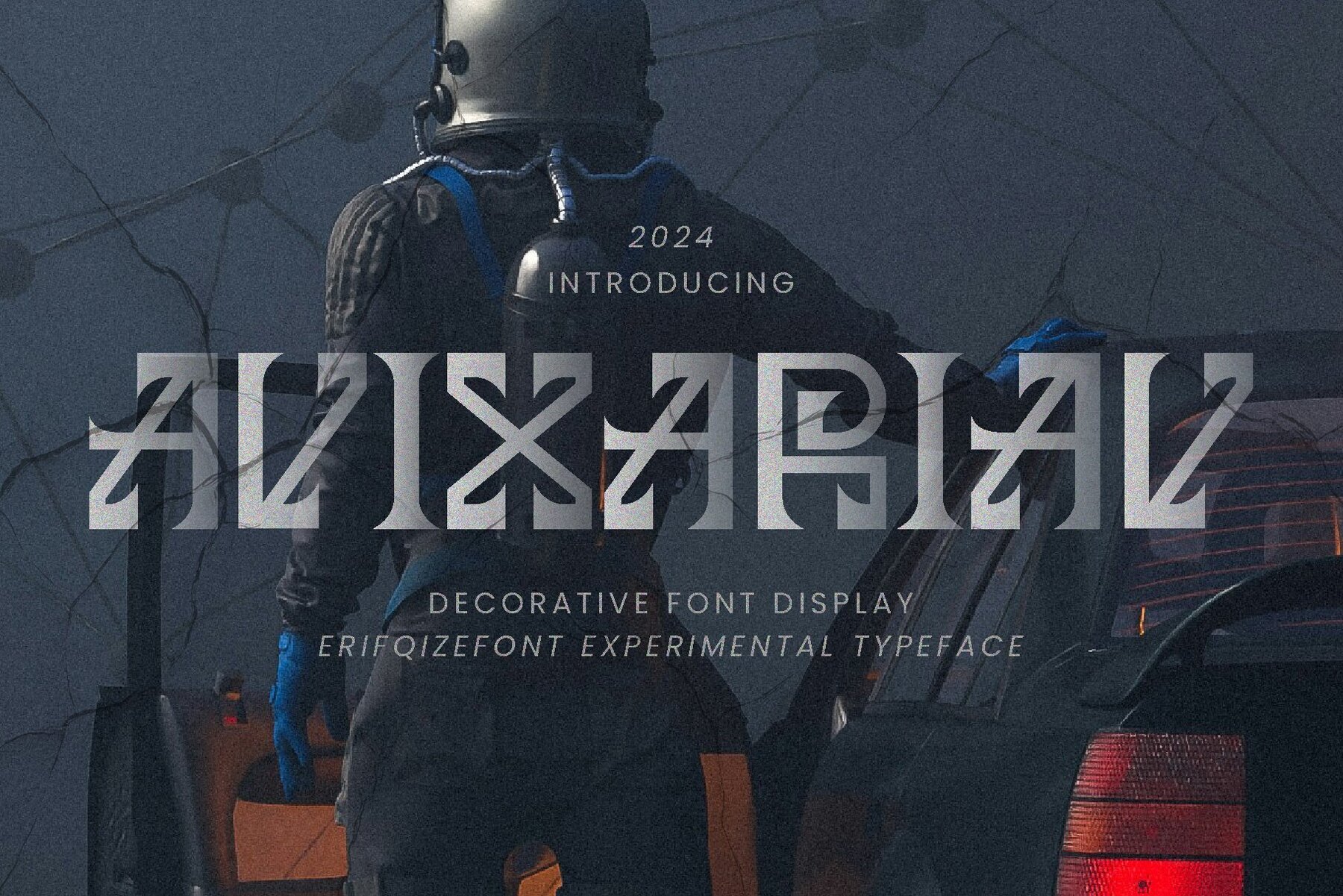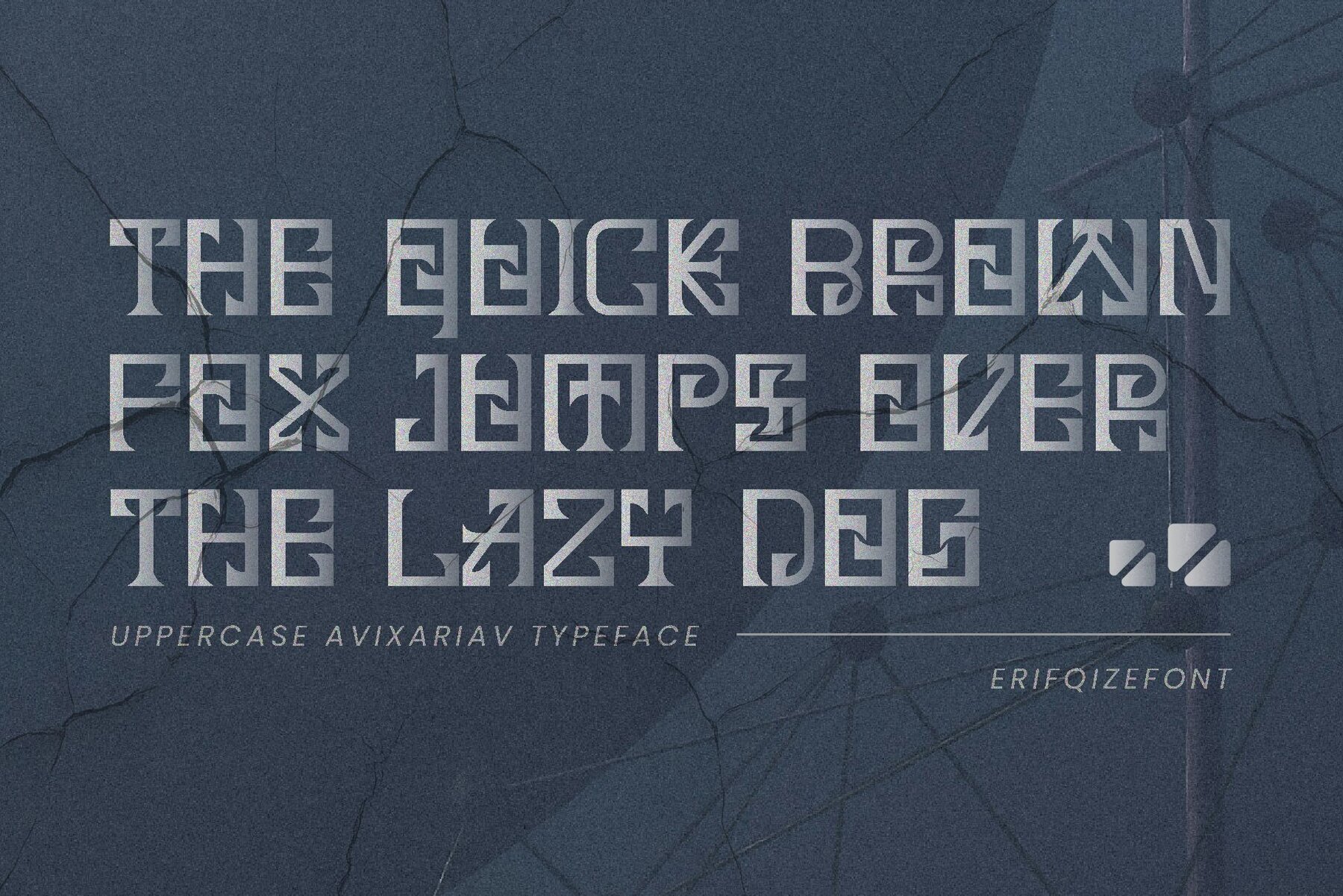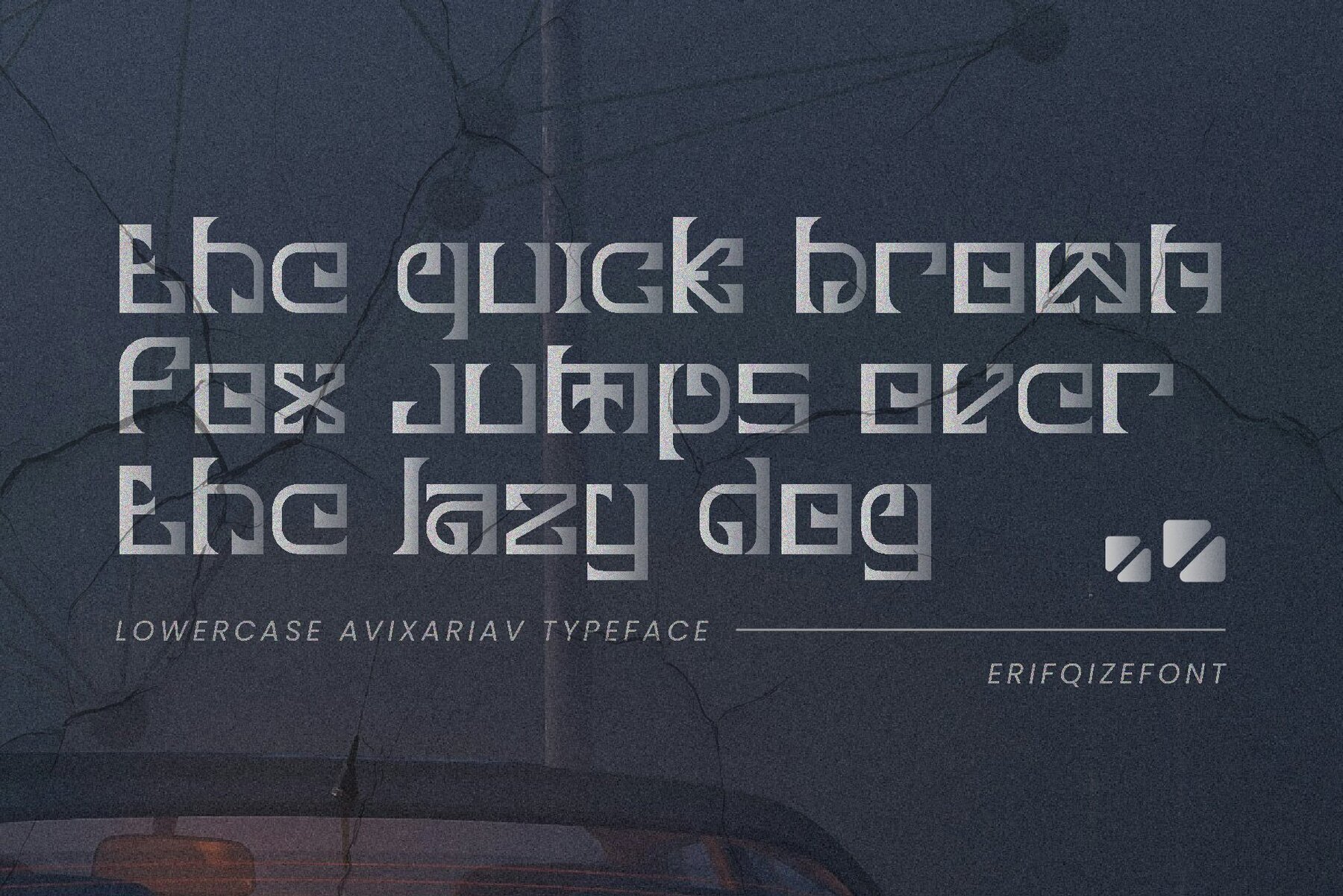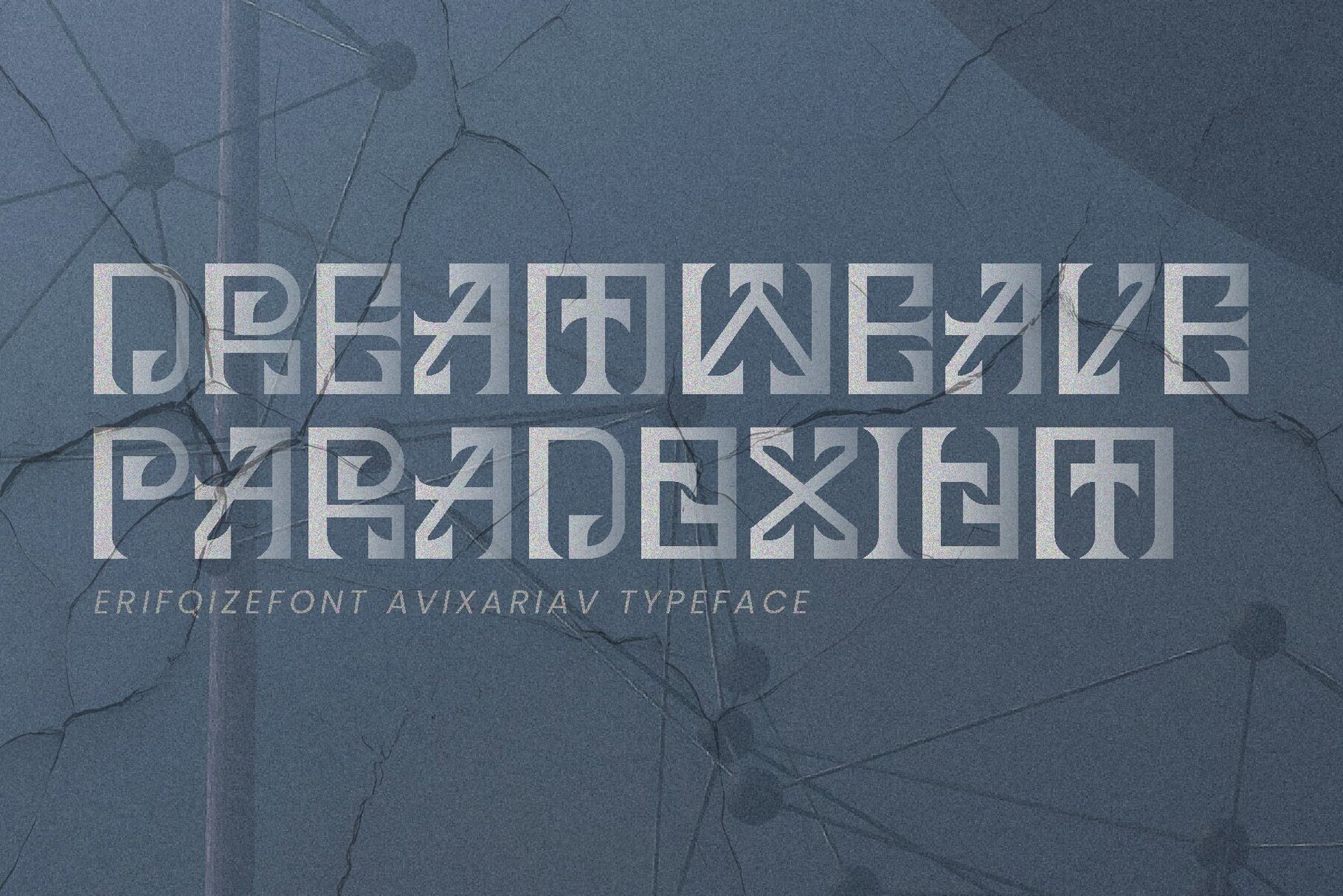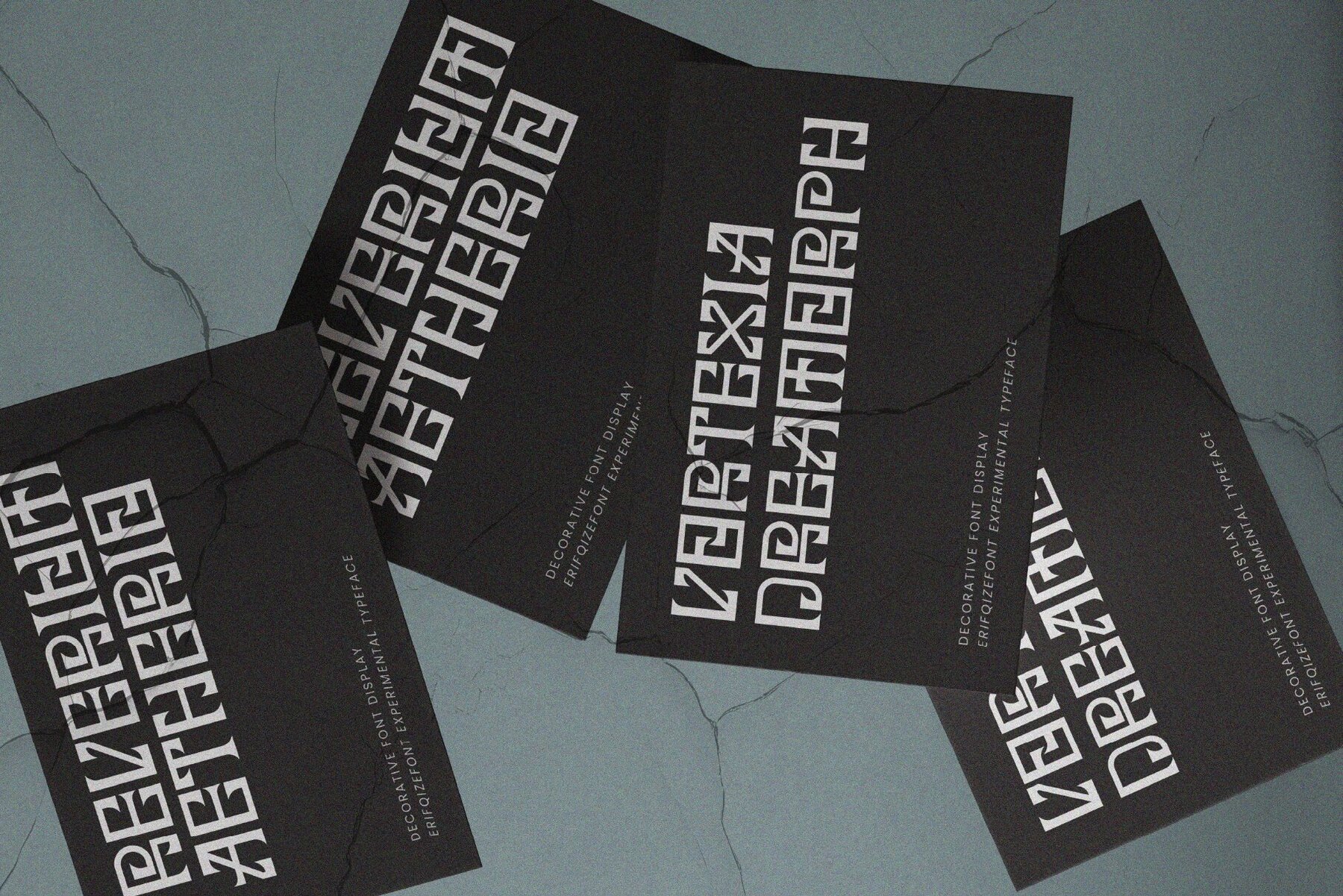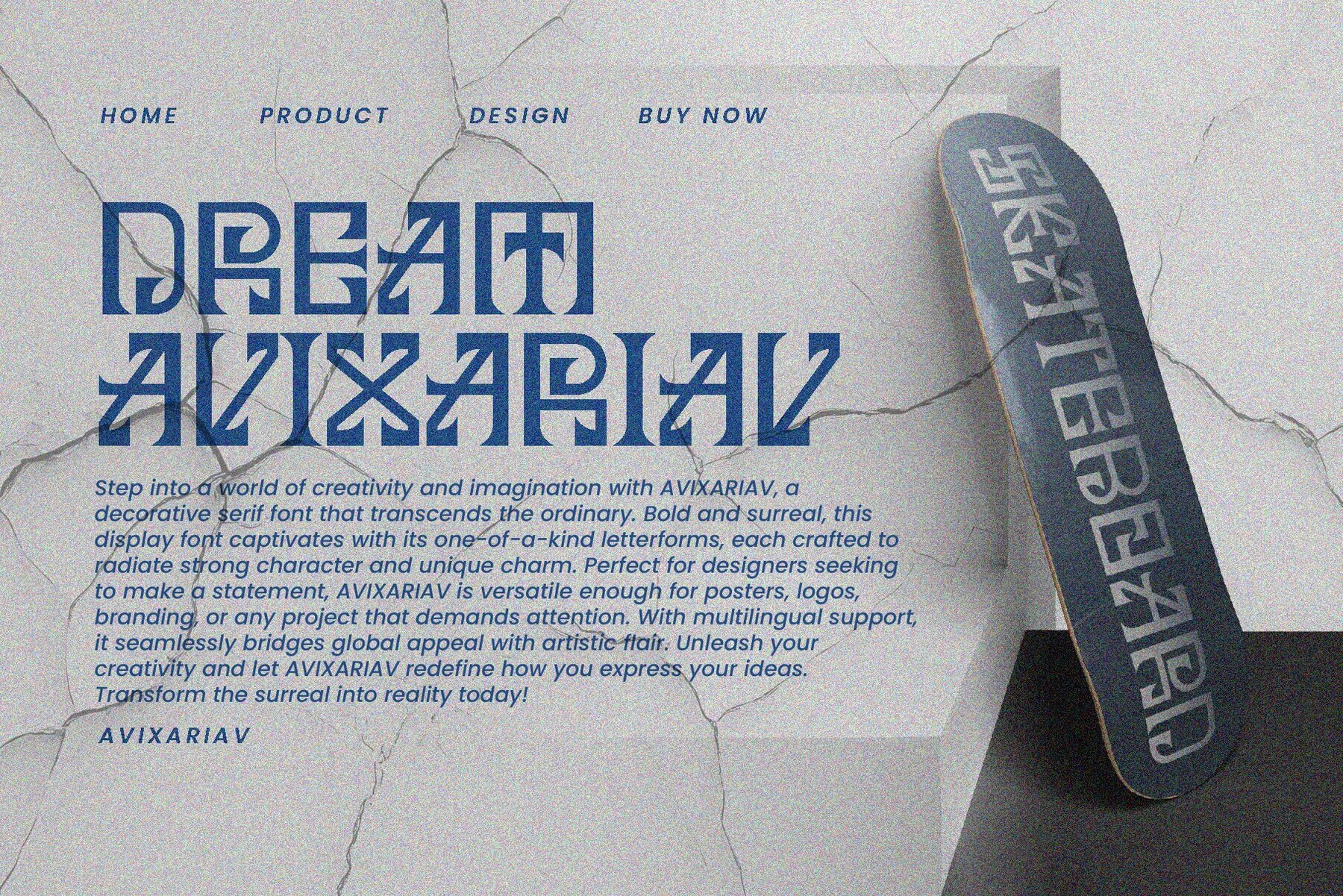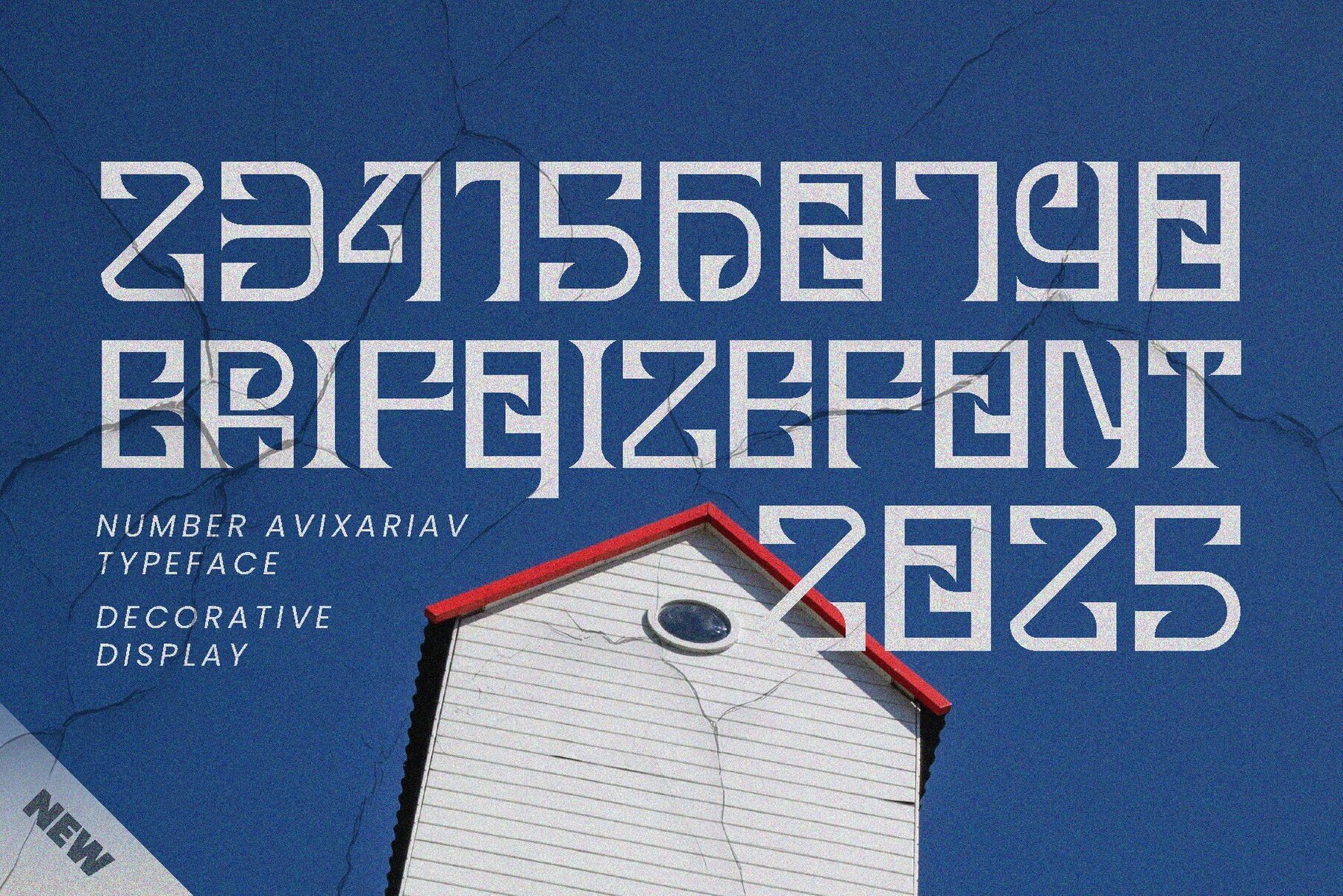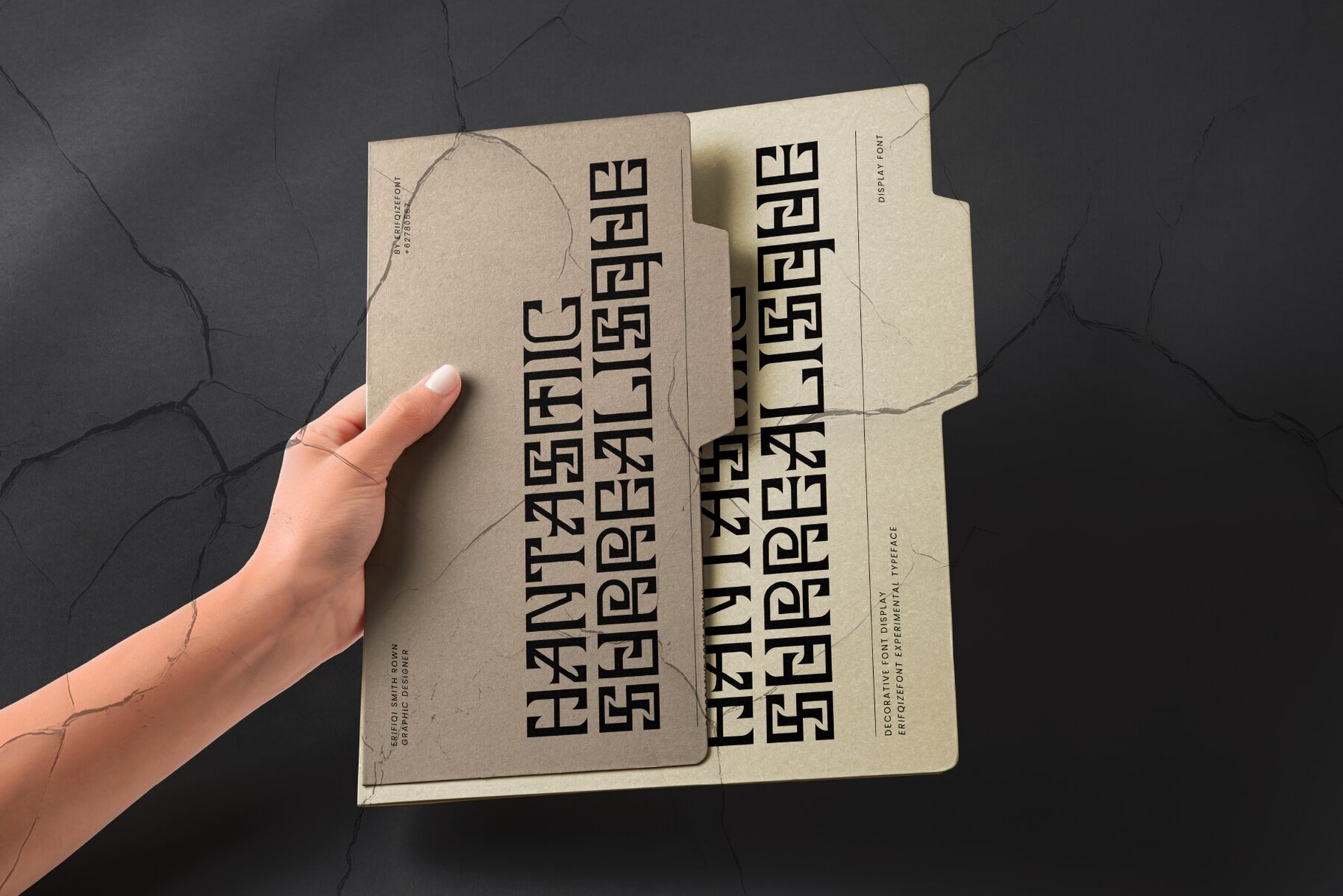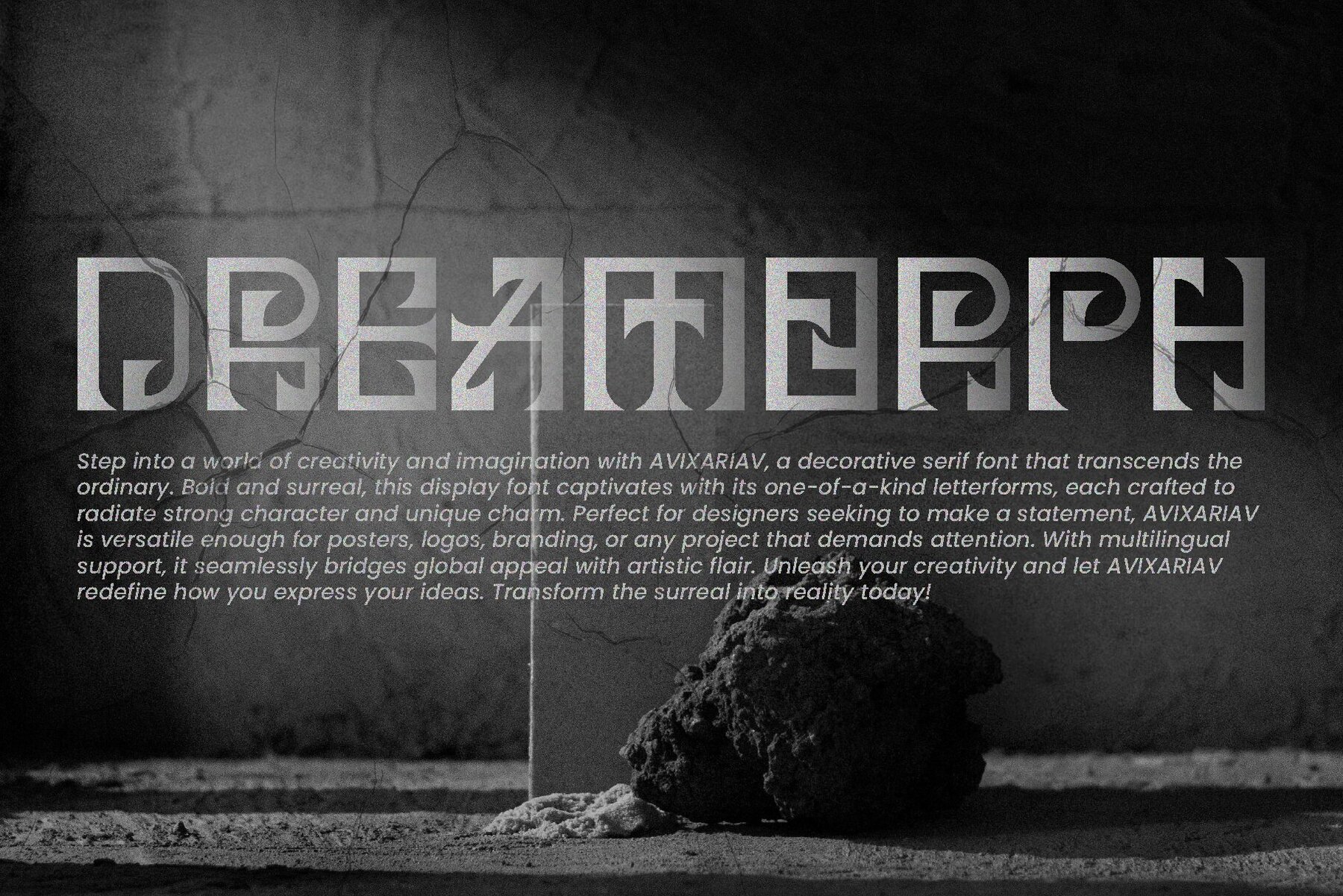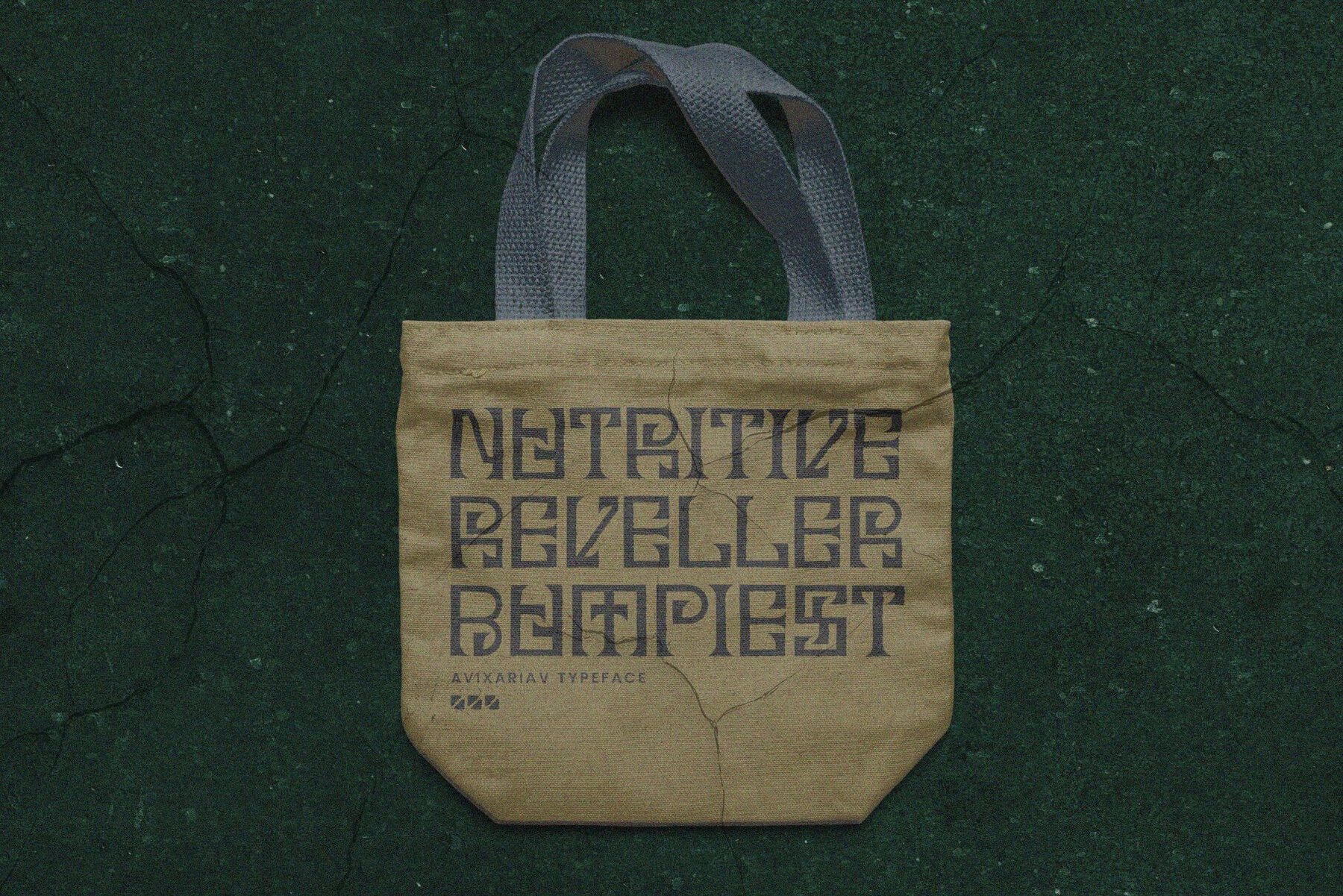
Avixariav Font
Avixariav
Embrace bold expressions with Avixariav, a decorative serif display font that stands out with its unique design. Featuring surreal, sculptural letterforms, this font delivers a strong visual impact, making each character a piece of art. Perfect for designers keen on leaving a significant mark, Avixariav excels in applications such as posters, logos, branding, and album covers, demanding attention and sparking curiosity. Avixariav combines distinctive style with multilingual support. Its global versatility makes it not only imaginative but also highly functional.Avixariav